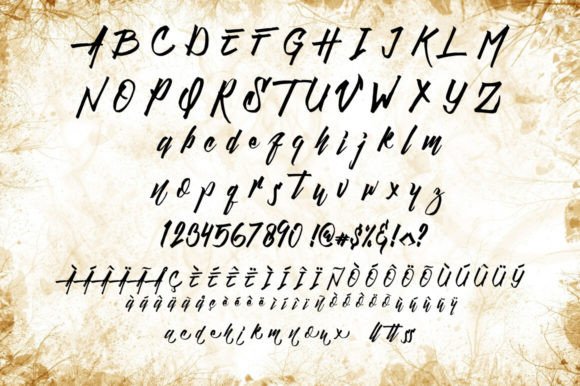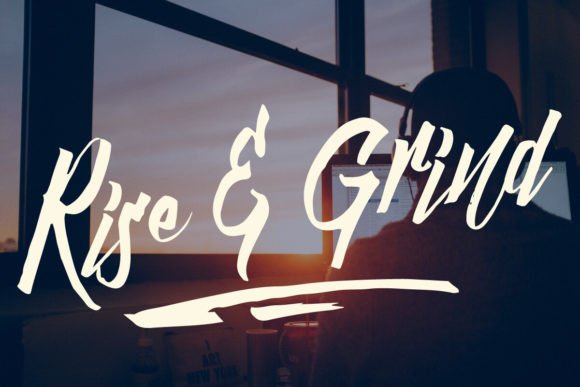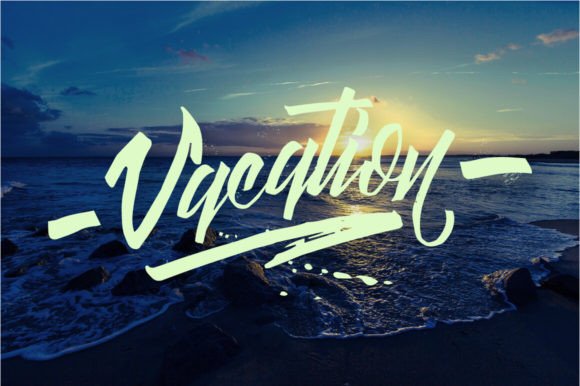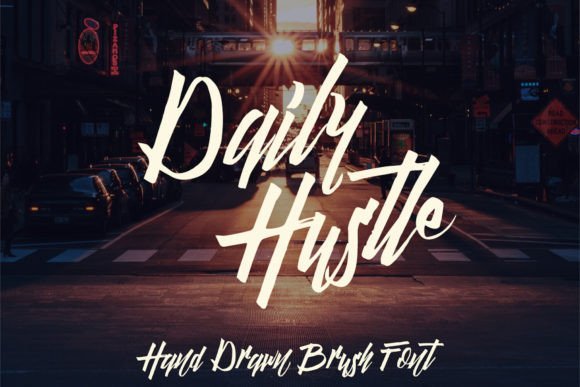
Introduction to Daily Hustle Font
Introducing Daily Hustle – A heavy handcrafted brush script that features a nice selection of alternates, ligatures, swashes, ink splotches and multilingual characters.
The font appears slightly aggressive & choppy and is great for creating quotes, logos & social media content .
Key Features of Daily Hustle Font